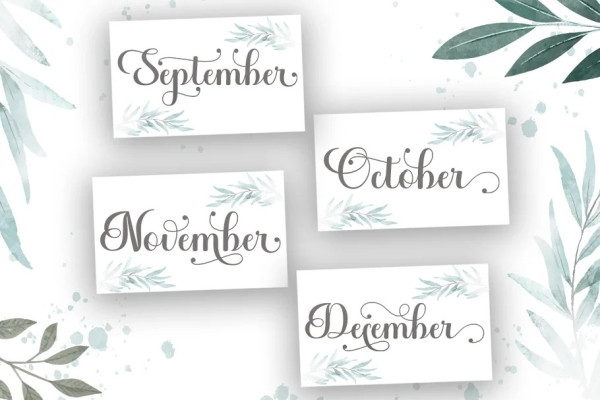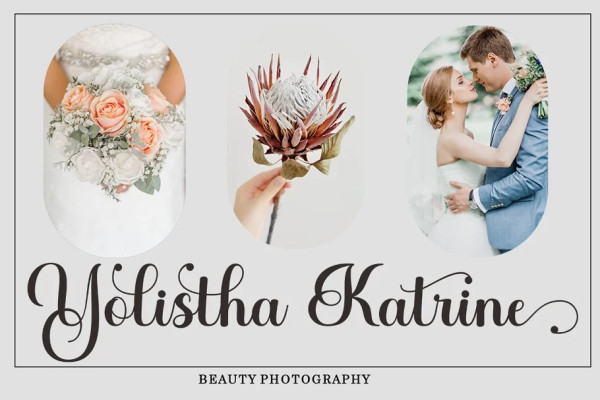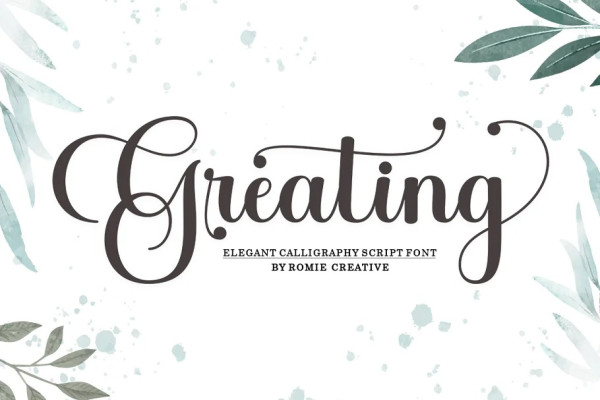
Greating Font
Greating Font is a very easy to read Script typeface, a beautiful, classy and elegant typeface. Can be used for various purposes such as logos, wedding invitations, t-shirts, letterhead, signage, news, posters, badges etc.
Greating Script features 399+ glyphs and 186 alternate characters, including start and end, alternate, swash, ligature, and multiple language support.